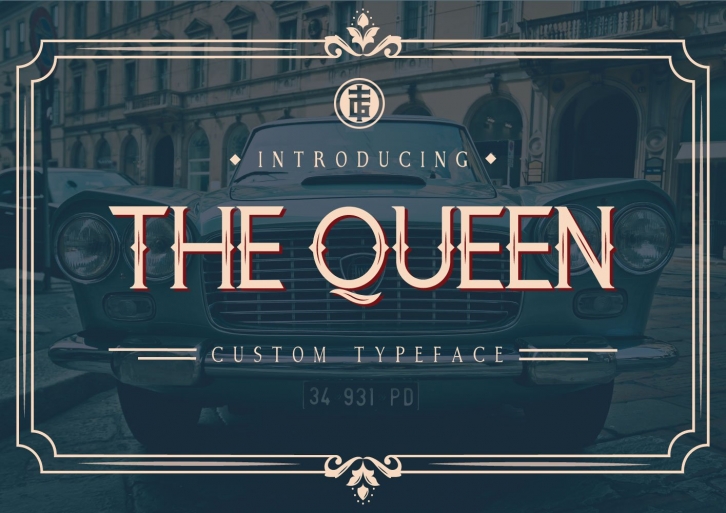
Introducing The Queen
Crafted by classic and vintage ornaments, this font is classy and elegant, drinks tea with a pinky held high in the air. The Queen typeface is well suited for book titles, logo type, movies, invitations and many more.